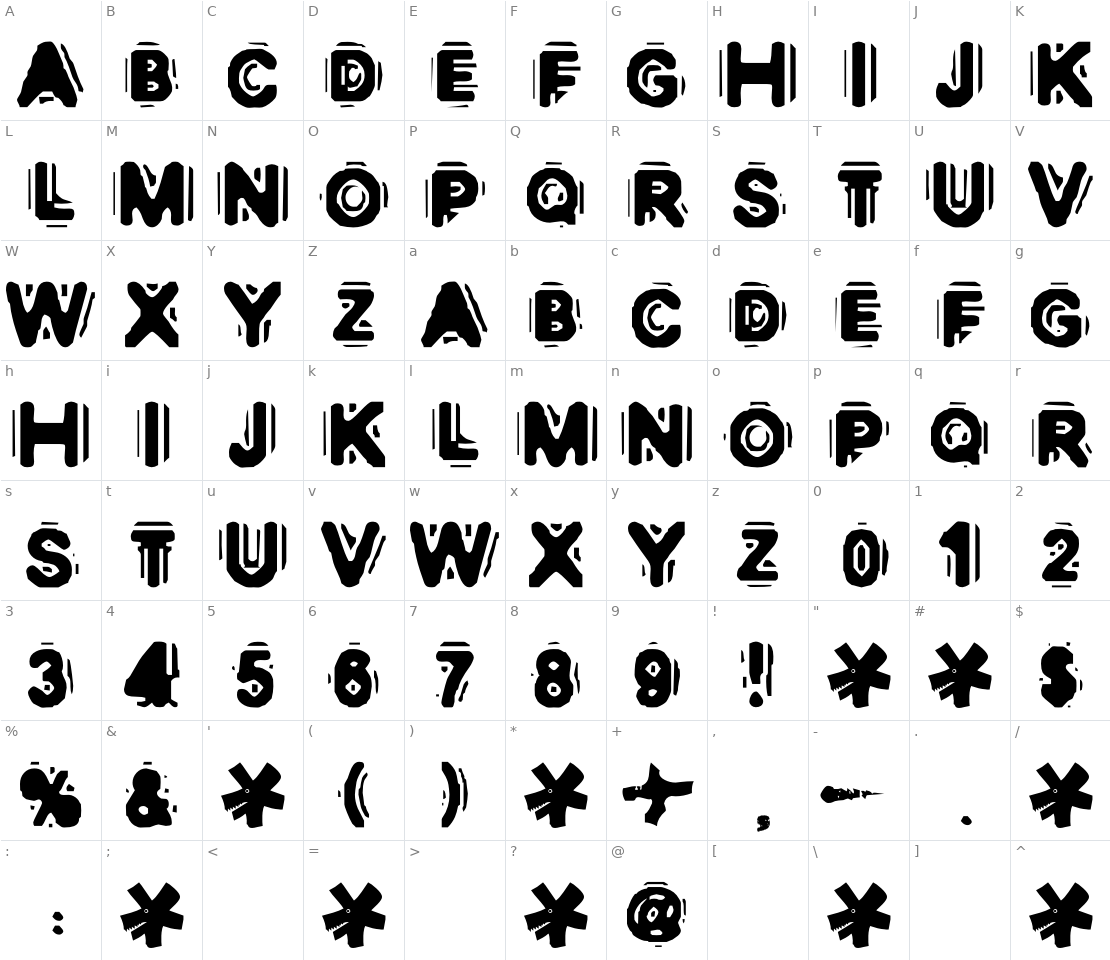
Discobox
Discobox is a heavy, geometric display face from pOPdOG fONTS that channels the bold, blocky lettering of late-'70s disco culture. The letterforms are thick and funky, with a decorative flair that feels like a nightclub flyer or roller rink poster brought back to life. Built for headlines and large-format work where you want maximum groovy impact.